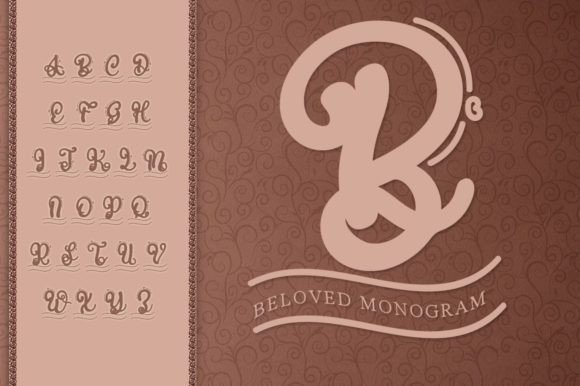
Adding a Touch of Elegance to Your Designs
There’s nothing quite like the thrill of finding the perfect font to bring your design to life. Remember that moment when you stumbled upon the perfect font to match your brand’s unique personality? For designers, it’s a moment of pure joy, and one that can make all the difference in creating a stunning visual identity.
Enter the Beloved Monogram Font, a beautiful and sweet font that’s perfect for adding a touch of elegance to your designs. This fresh, clean, and elegant font is designed to simplify your design process, making it easy to create stunning visuals for both formal and informal projects. By using the Beloved Monogram Font, your business will look more beautiful and refined, setting you apart from the competition.
Beloved Monogram Font Key Features
• Font Style: Elegant, cursive script with intricate details and flourishes
• Language Support: Supports a wide range of languages, including Latin, Cyrillic, and Greek scripts
• Unique Characteristics: Features intricate monogram designs, swashes, and flourishes that add a touch of elegance to any design
Beloved Monogram Font Review
As a designer, I was excited to dive into the Beloved Monogram Font and see what it had to offer. ✨ One of the things that really stood out to me was the beautiful, elegant feel of the font. It’s perfect for creating a sophisticated and luxurious vibe, whether you’re designing a wedding invitation or a high-end brand identity.
Another thing that I loved about Beloved Monogram Font is its versatility. ✨ It comes in a range of sizes and styles, from bold and dramatic to delicate and dainty. This makes it incredibly easy to use in a variety of different contexts, from large-scale signage to intricate illustrations.
What Doesn’t Work So Well:
• ⚠️ Limited character set: While the font does come with a range of letters and symbols, it’s not as comprehensive as some other fonts on the market. This can make it difficult to use for longer blocks of text.
• ⚠️ Some users may find the font too ornate: While the elegant feel of the font is a major selling point, it may not be to every user’s taste. Some may find it too busy or over-the-top.
Overall, I think the Beloved Monogram Font is a beautiful and versatile addition to any designer’s toolkit. While it may have some limitations, it’s a great choice for anyone looking to add a touch of elegance and sophistication to their designs.
Tips for Getting the Most Out of Beloved Monogram Font
Use Beloved Monogram Font to add a touch of elegance and sophistication to your designs. Consider the following tips:
• Pair the font with a neutral background to let the monogram take center stage.
• Use the font in conjunction with other design elements, such as graphics and textures, to create a cohesive look.
• Experiment with different font sizes and colors to add visual interest.
We recommend using the Beloved Monogram Font at a minimum size of 24 points and a line height of 1.5 to 2 times the font size. This will ensure optimal readability and maintain the font’s elegant, cursive style.